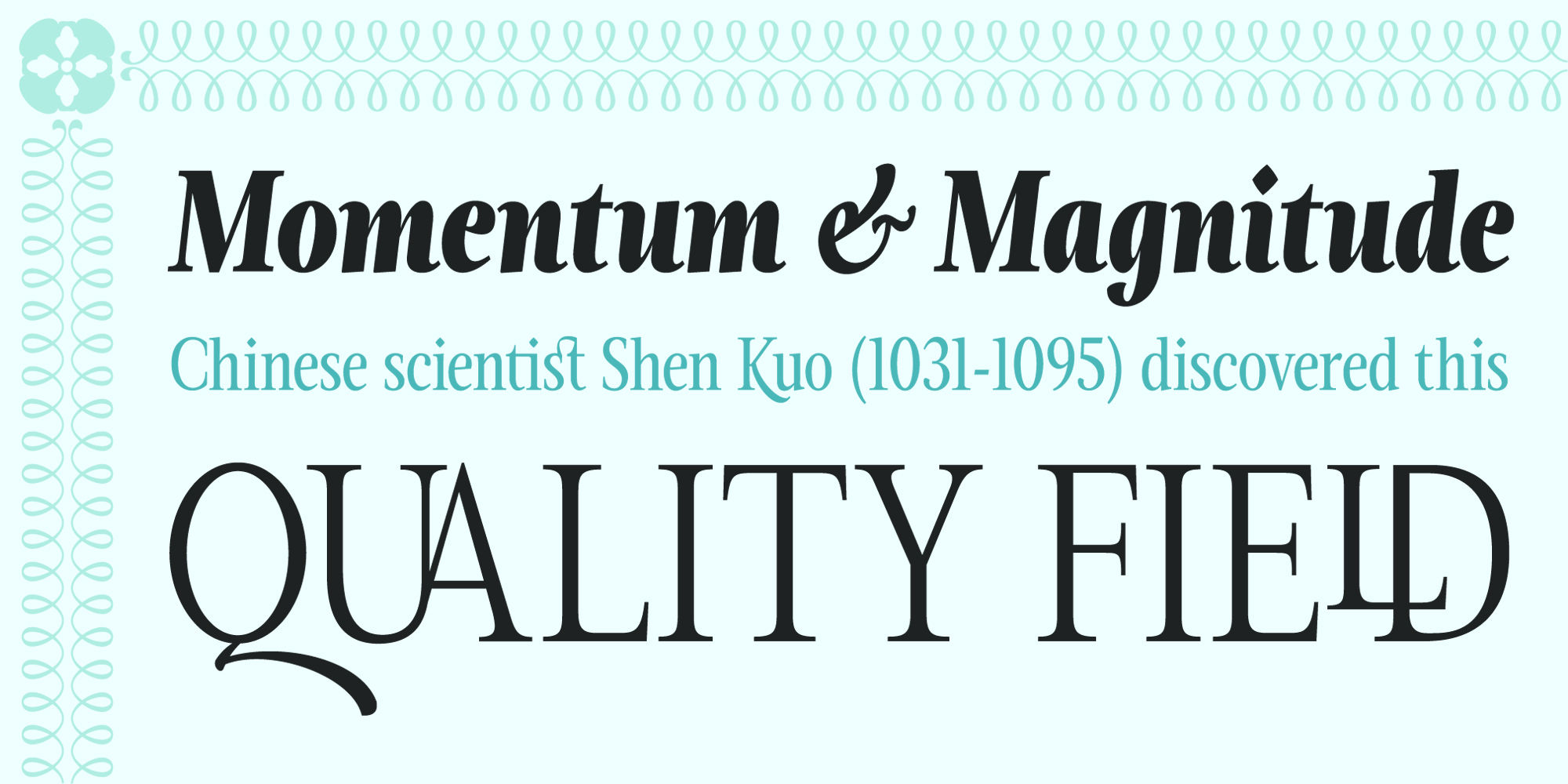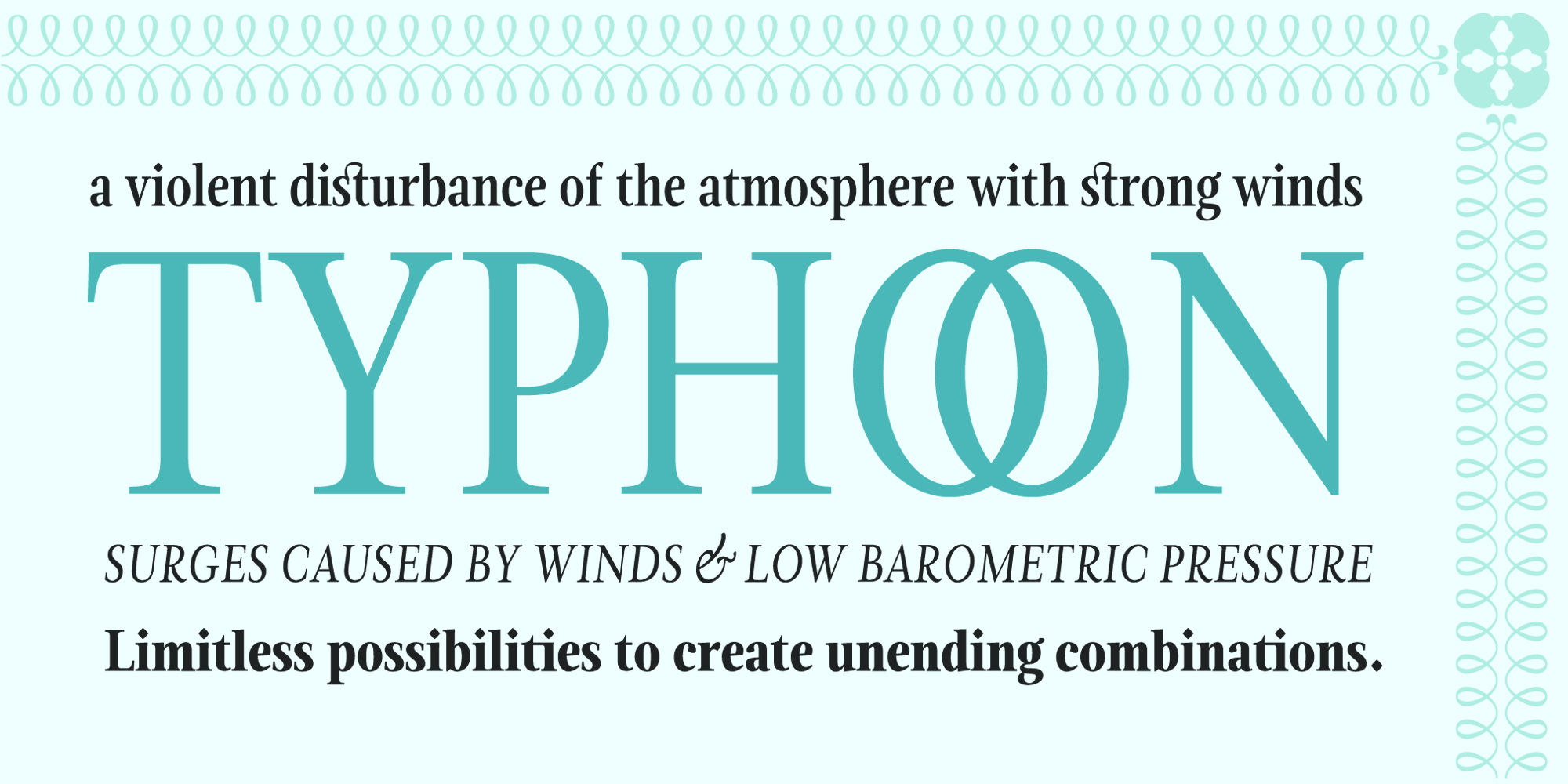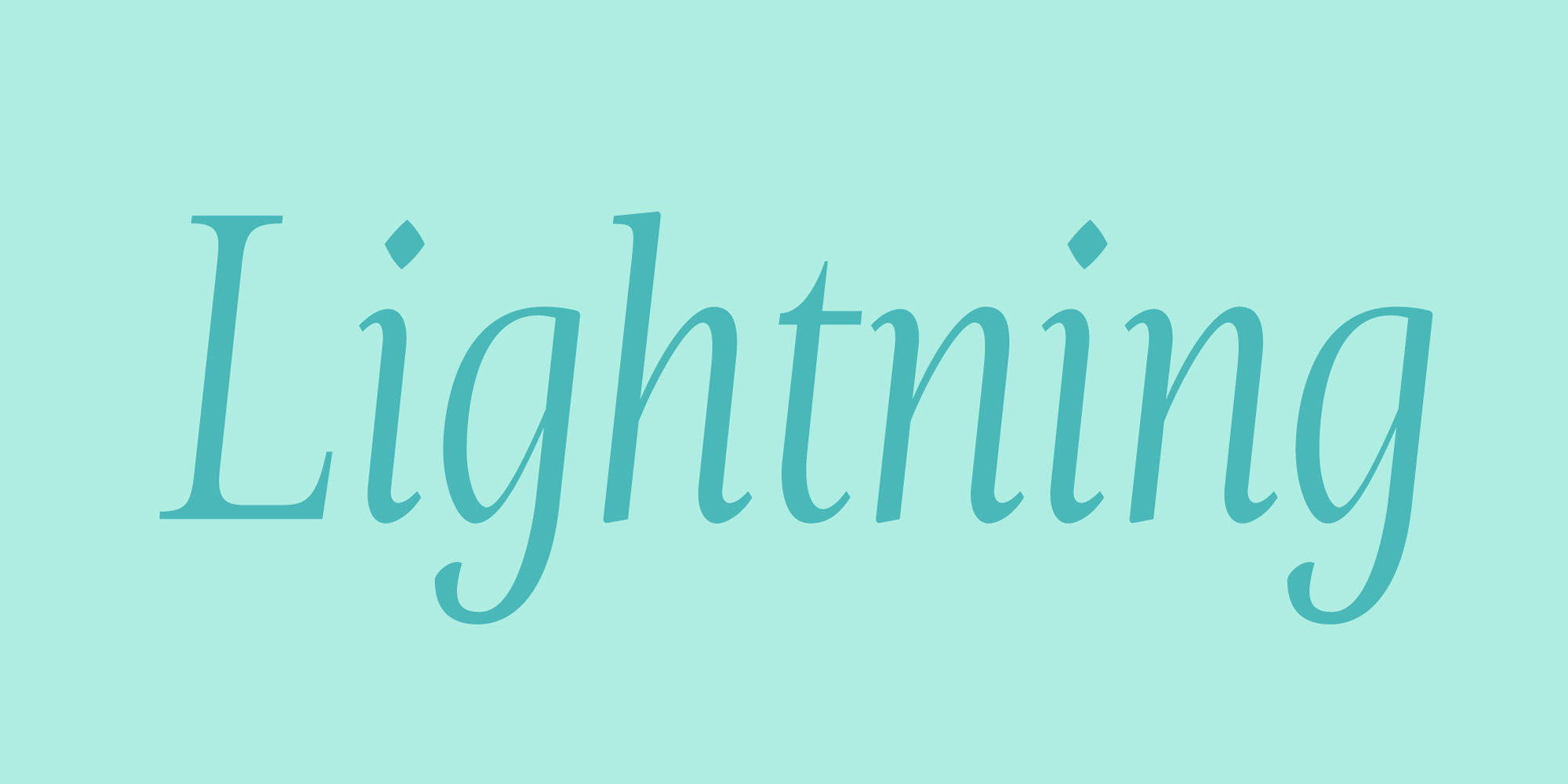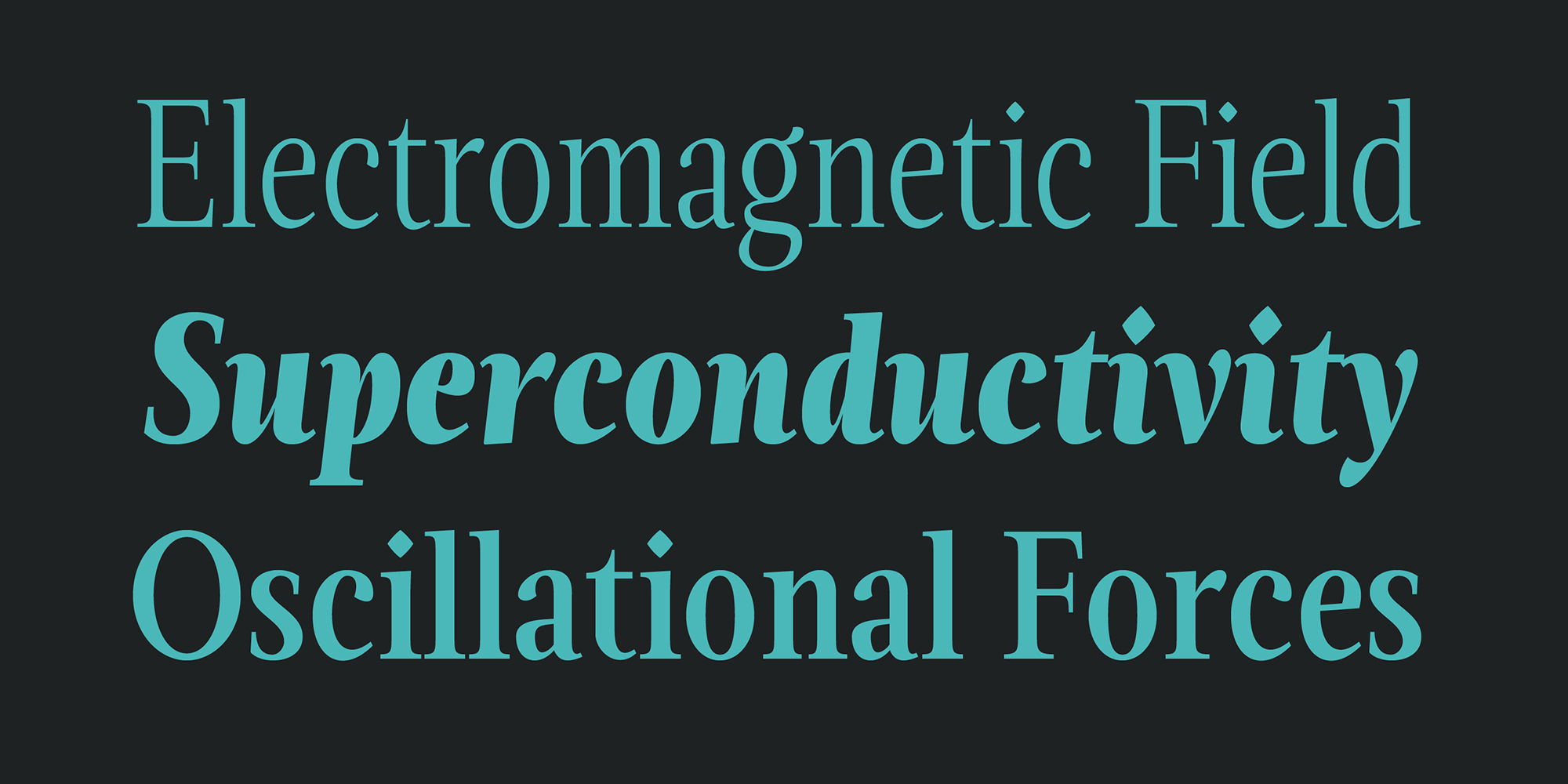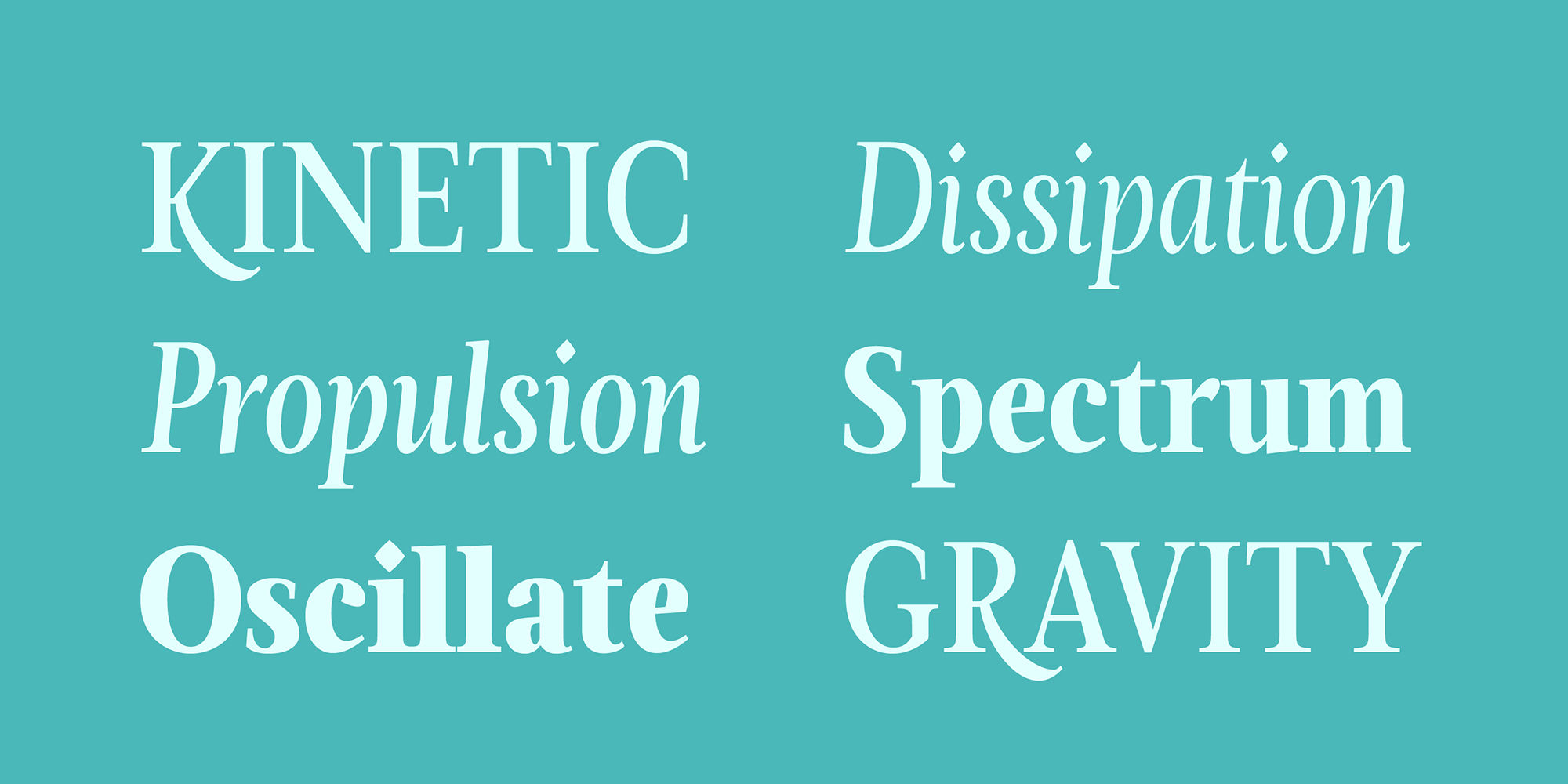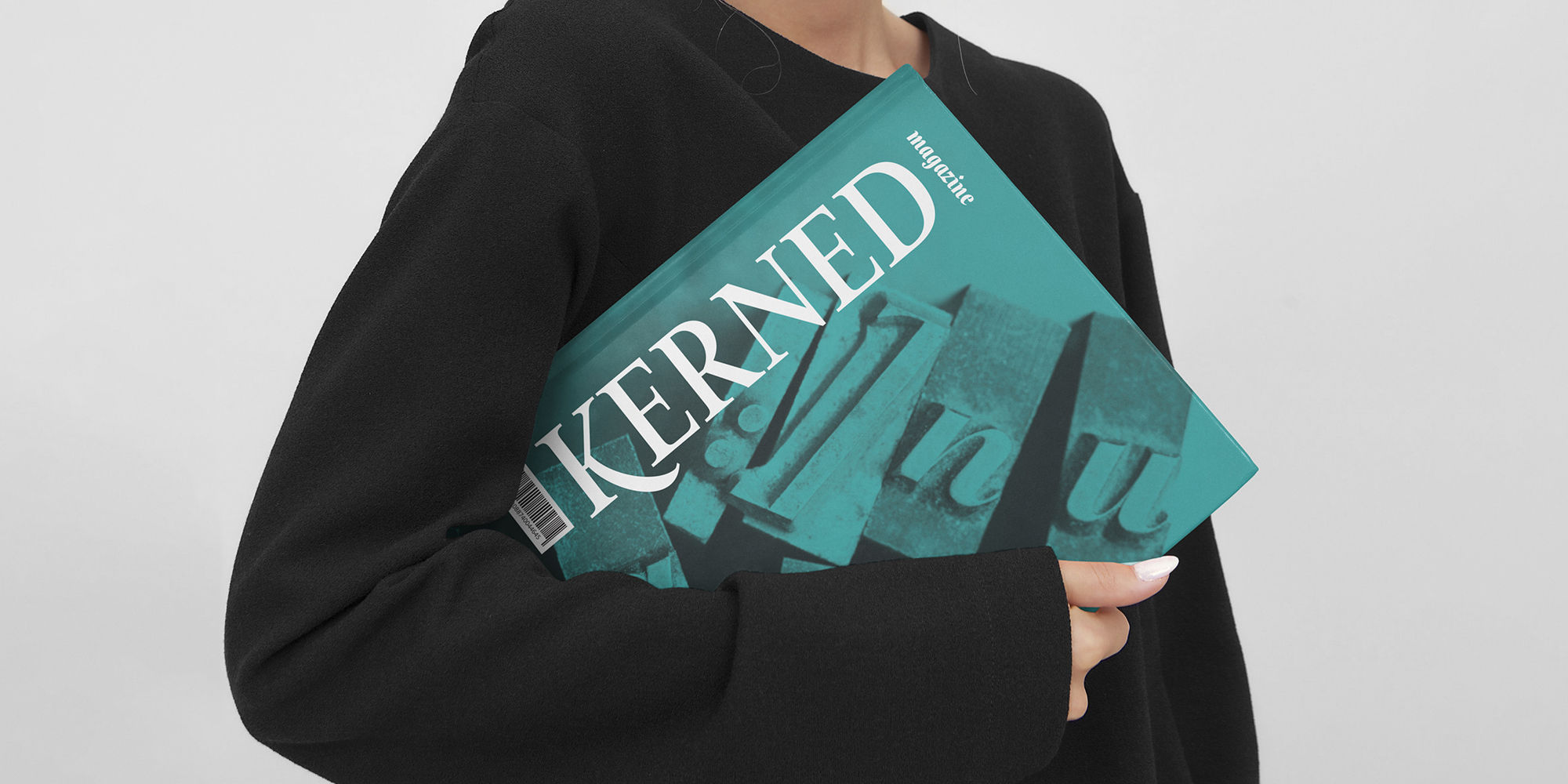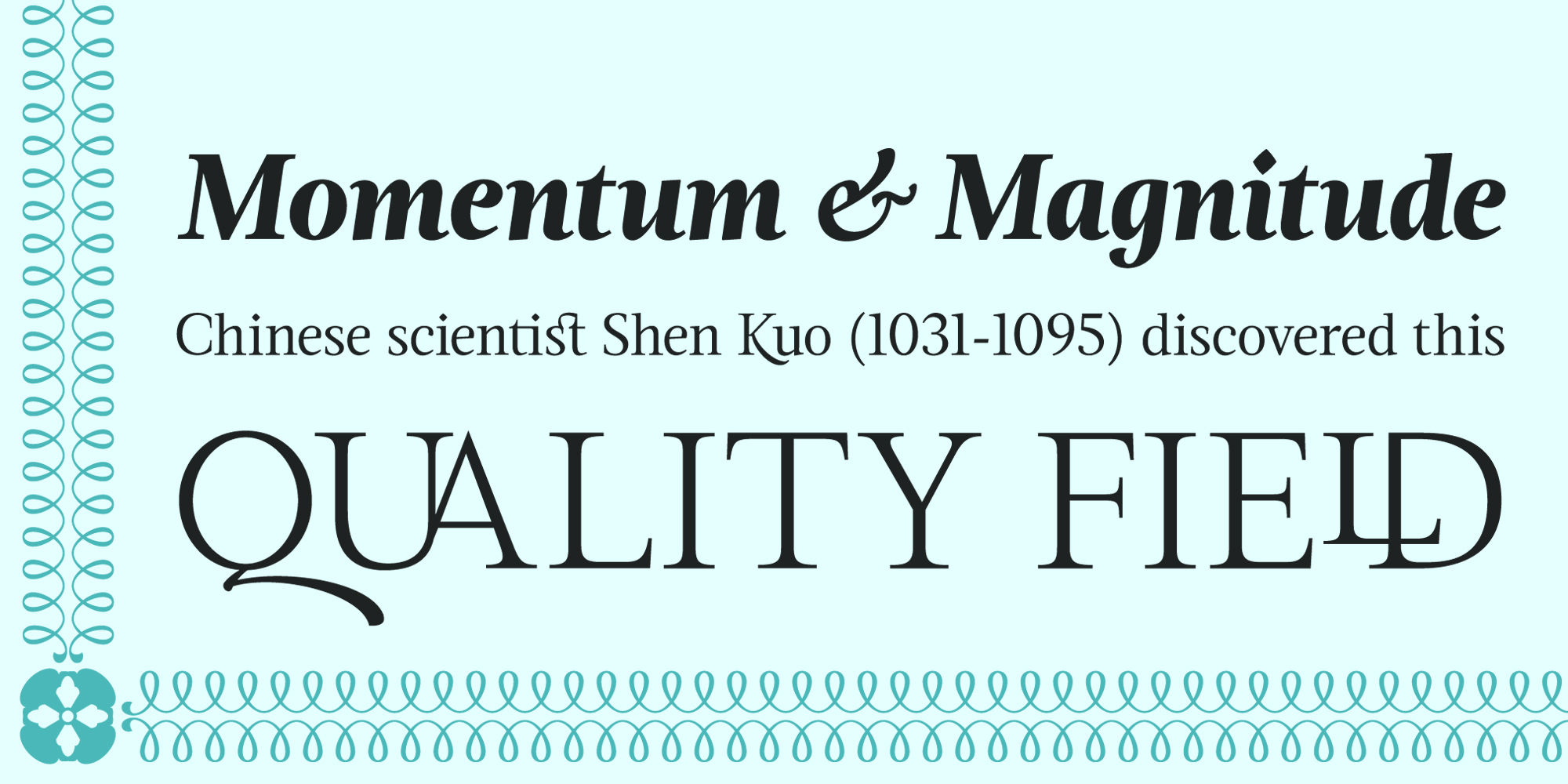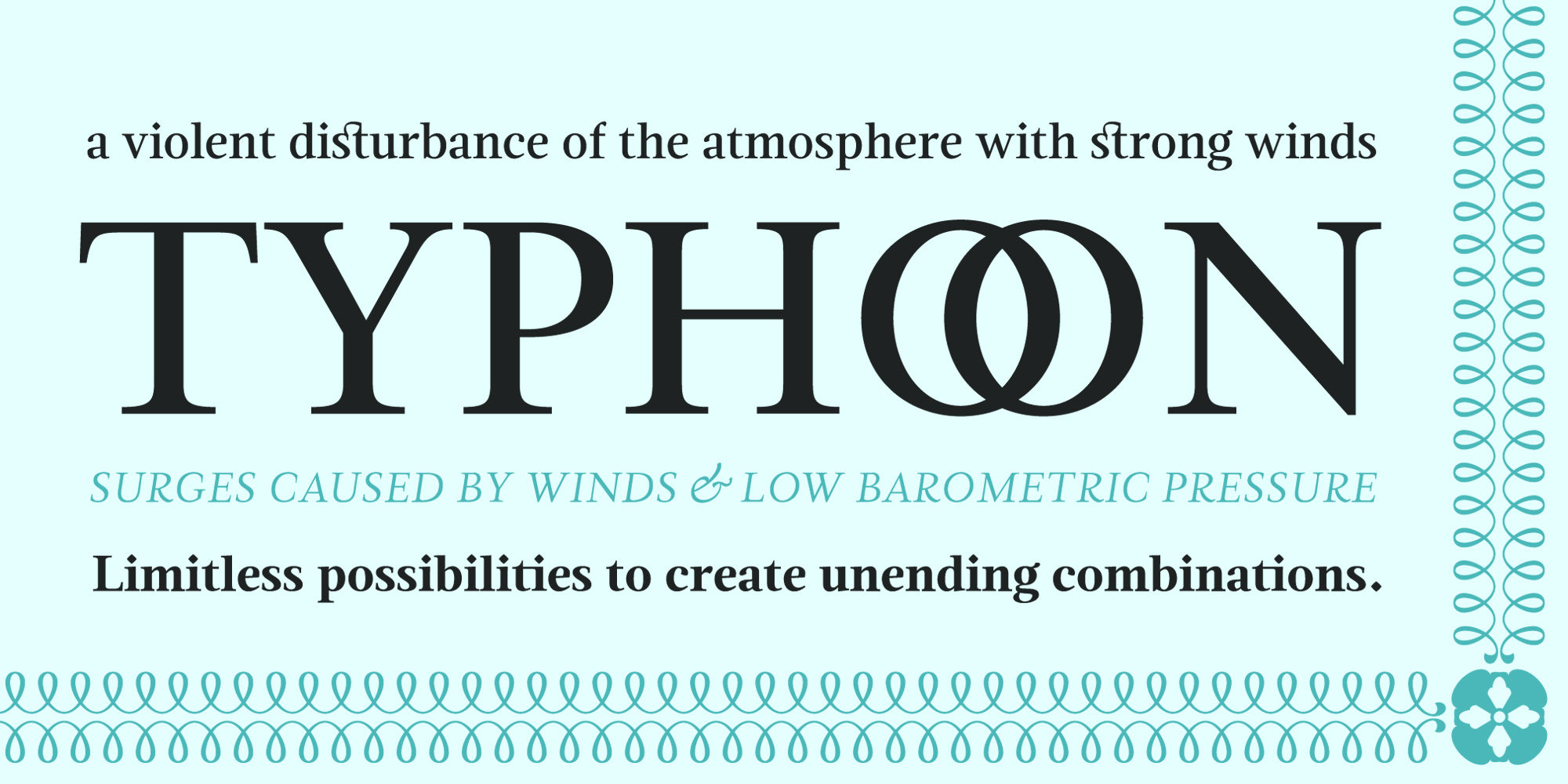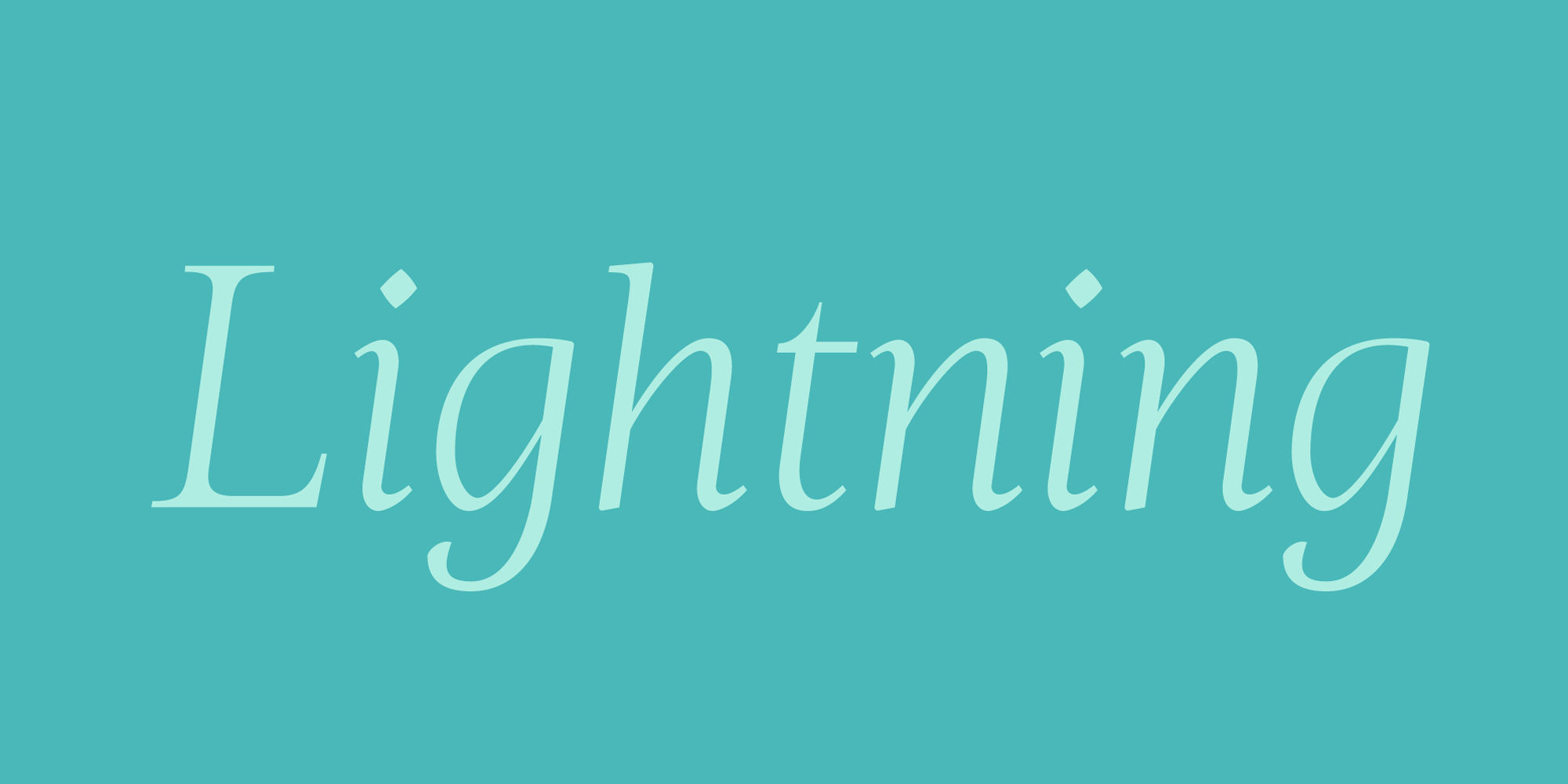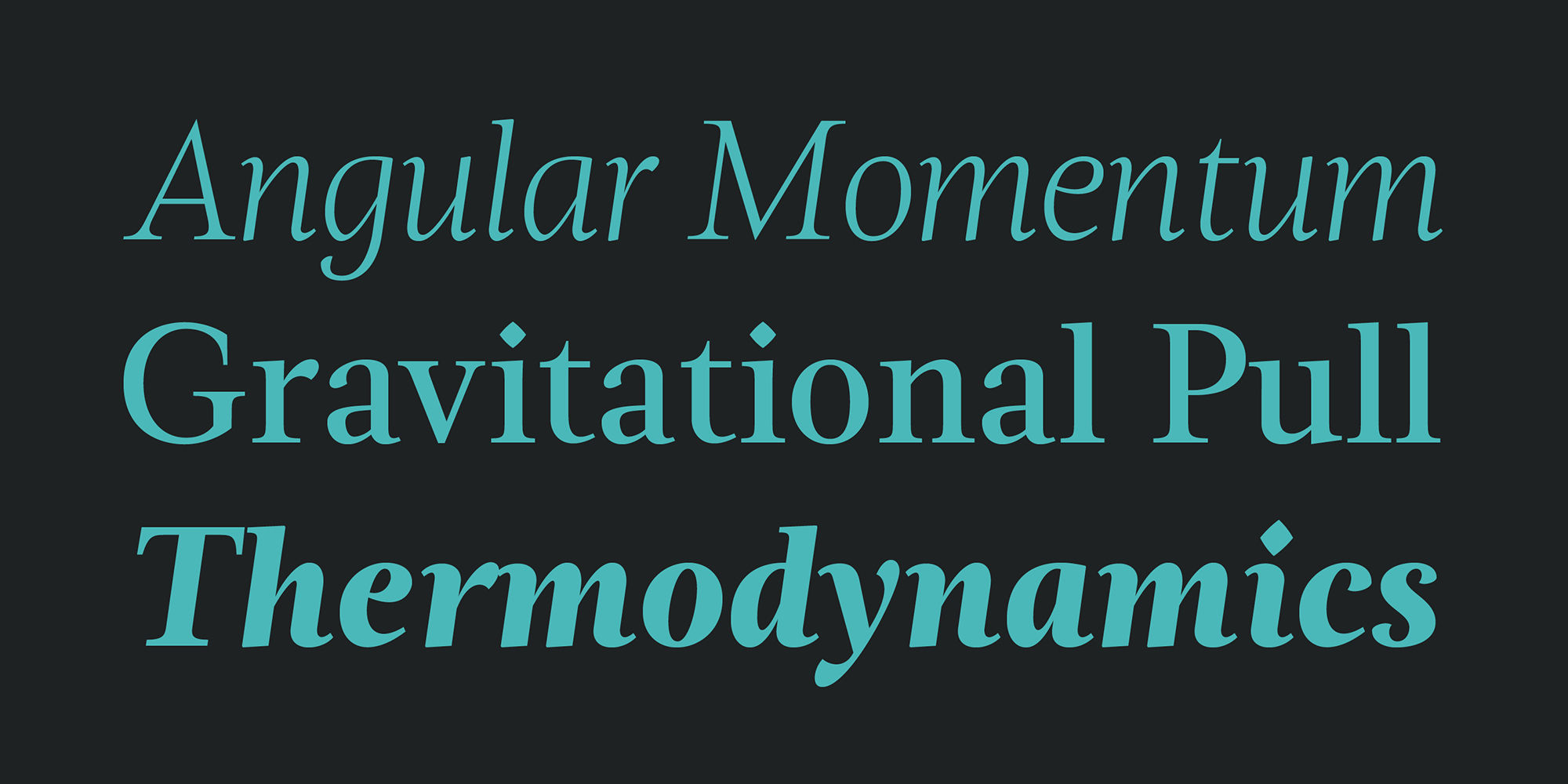
Magneta
To describe what inspired Magneta would be to add a little Dwiggins, throw in some Benton with a hint of Austin, wrap it up in a crisp, contemporary package and serve.
The skeleton of the family is a Garalde (like my earlier Epic) but with a desire to produce something much more transitional and contemporary, I sought to simplify, simplify. Cap and ascenders share the same height, the x-height is slightly larger than expected which should make a functional typeface for editorial, headlines or where more visually complex systems are needed. The modulation is much more intentional than historical and creates some interesting interactions between the various weights.
There are both Normal and Condensed widths available with 6 different weights and matching italics, small caps, oldstyle figures, swashes, stylistic and discretionary ligatures (that includes some fun majuscule ligatures in the roman styles), there is no lack of typographic goodness for the designer. To add some spice, a set of Decorative Ornaments have been created that include geometric, floral, curvilinear patterns and much more.